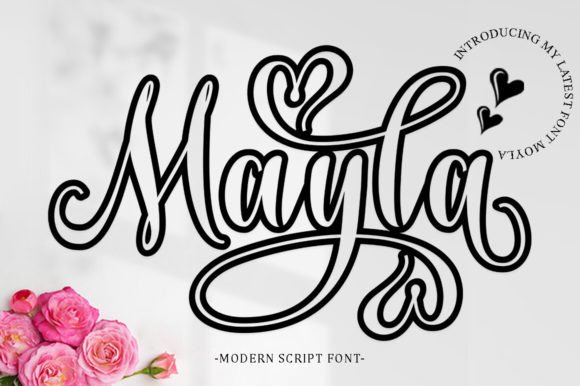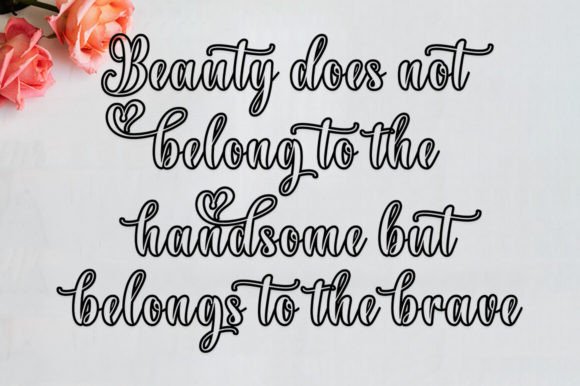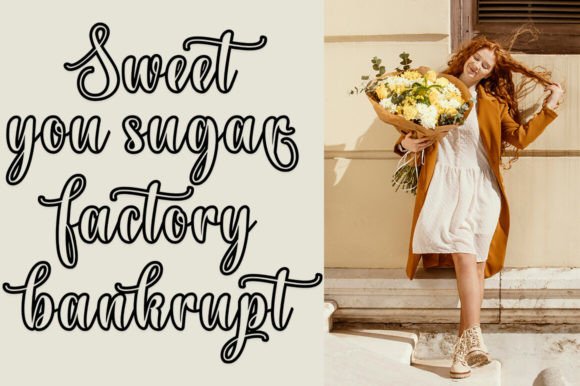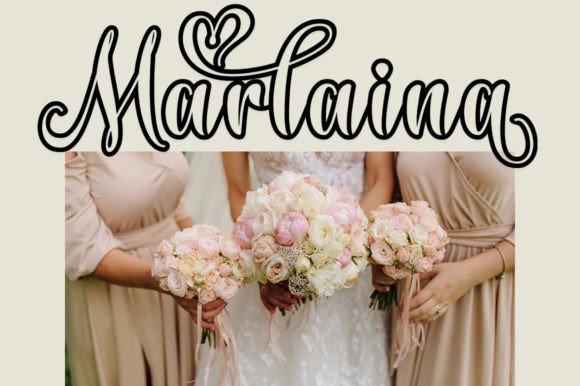
Mayla Outline Font
About the Mayla Outline Font
The wait is over! The incredible Mayla Outline Font is now available for your design toolkit. Mayla Outline is a cute, versatile, and flexible handwritten font. Warm, romantic, and jovial, this font will turn any of your project ideas into real works of art. This font is PUA coded which means you can access all the glyphs and swashes easily, this font is complete with language support!
Mayla Outline’s playful, romantic feel makes it ideal for projects requiring a touch of whimsy, such as wedding invitations, greeting cards, or branding for artisanal food products. It excels in headlines, short text blocks, and logos, where its delicate outlines shine. However, its handwritten nature makes it less suitable for body text or UI elements; legibility suffers in extended use.
The font’s overall personality is best described as charming and approachable, conveying a sense of warmth and lightheartedness.
Mayla Outline Font Usage Examples
Mayla Outline Font Example